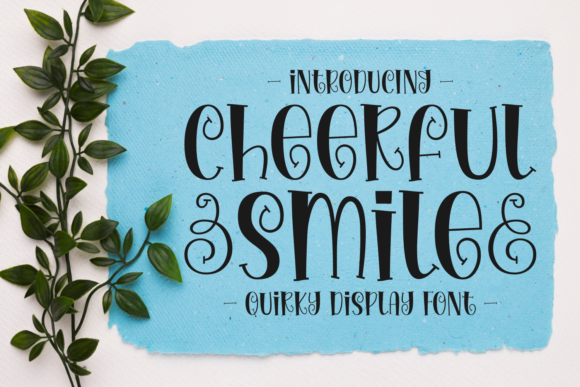
Smile Bright with the Cheerful Smile Font
Remember that moment when you stumbled upon the perfect font to elevate your craft project? The excitement, the joy, and the satisfaction of knowing you’ve found something special? That’s exactly what I’m about to share with you – a font that’s sure to bring a smile to your face and a pop of personality to your designs.
Meet the Cheerful Smile Font, a vibrant and playful display font designed to add a touch of whimsy to any project. Whether you’re a seasoned crafter, a graphic designer, or a DIY enthusiast, this font is sure to bring life to your creations. With its compatibility with cutting machines like Cricut and Silhouette, you can easily turn your designs into reality.
As a designer, you know the importance of finding the right font to match your vision. The Cheerful Smile Font is a valuable addition to any design toolkit, offering endless possibilities for creative expression. Get ready to unleash your creativity and spread joy with this delightful font!
Cheerful Smile Font Key Features
- Font Family: Cheerful Smile Font
- Font Size: 400 glyphs, including uppercase and lowercase letters, numbers, and punctuation
- Unique Characteristics: Hand-drawn design with a playful, smile-inspired feel; includes ligatures and swashes for added flair
Designer Review: Cheerful Smile Font
At first glance, the Cheerful Smile Font may seem like a generic, cheerful font, but don’t let that fool you. There’s more to it than meets the eye. ✨ The font’s rounded edges and smooth curves make it perfect for creating a friendly and approachable atmosphere in your designs.
Here are a few things that work well with the Cheerful Smile Font:
- It’s highly legible, making it perfect for body text.
- The font’s adaptability to different sizes and resolutions is impressive.
- It’s a great choice for creating a sense of warmth and friendliness in your designs.
- ⚠️ The font may not be the best choice for formal or professional designs, as it can come across as too playful.
- ⚠️ The font’s rounded edges can make it difficult to read at very small sizes.
Overall, I’d say the Cheerful Smile Font is a solid choice for designers looking to create a friendly and approachable atmosphere in their designs. While it may not be perfect for every project, it’s definitely worth considering for the right type of design.
Cheerful Smile Font is ideal for:
– Creating playful and friendly designs.
– Adding a touch of whimsy to your branding.
– Designing children’s educational materials.
Tips for Getting the Most Out of Cheerful Smile Font
For the best results, use Cheerful Smile Font in combination with bright and playful colors. You can also experiment with different font sizes and styles to add visual interest to your design.
Alternatives to Cheerful Smile Font
The Pacifico Font is a beautiful, handwritten font that is perfect for creating a sense of relaxation and calmness. It is ideal for use in travel, wellness, and outdoor-related projects. Compared to Cheerful Smile Font, Pacifico has a more laid-back and casual feel, making it a great choice for designers who want to create a sense of tranquility in their designs.
Can I customize the Cheerful Smile Font?
Yes, the Cheerful Smile Font can be customized to suit your specific design needs. The font includes a range of OpenType features, including ligatures, swashes, and stylistic sets, which can be accessed using a range of design applications. Additionally, the font can be customized using font editing software, such as FontLab or FontForge, allowing designers to